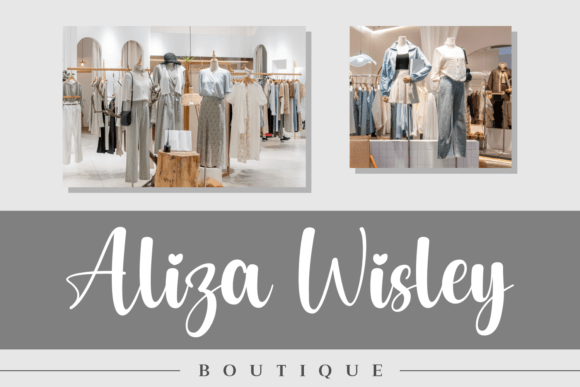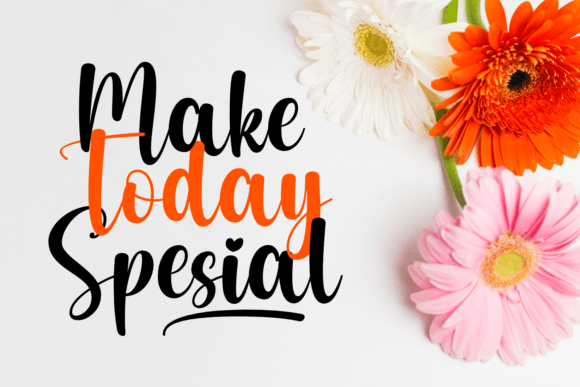
The Perfect Touch of Elegance: Aesthetic Charming Font
Do you remember the moment when a particular font or typography caught your eye and inspired a design concept? For many creatives, this is a familiar experience that sparks the imagination and sets the tone for a project. As I recall my own journey, I often find myself drawn to fonts that exude elegance and sophistication. One such font that has captured my heart is the Aesthetic Charming Elegant Calligraphy Font, a stunning typeface that adds a touch of refinement to any project.
This beautiful font is not just a pretty face; it’s a valuable asset for designers who want to elevate their work with a sense of luxury and charm. Whether you’re working on wedding stationery, branding materials, or editorial designs, the Aesthetic Charming Font is an ideal choice that will leave a lasting impression on your audience.
Aesthetic Charming Font Key Features
- Size: The font is available in 4 font sizes: 400, 500, 600, and 700, allowing for flexibility in typography.
- Resolution: Designed for high-resolution displays, the font is optimized for 300 DPI and above, ensuring crisp and clear text.
- Unique Characteristics: The Aesthetic Charming Font features a unique blend of elegant and whimsical elements, making it perfect for creative projects.
- Language Support: The font supports a wide range of languages, including Latin, Cyrillic, and Greek, making it suitable for international projects.
Aesthetic Charming Font Review
I’ve had the chance to work with the Aesthetic Charming Font, and here’s my honest review.
- Unique and creative design: The font’s intricate details and flowing curves make it stand out from more traditional font options.
- High level of customization: I was able to adjust the font’s size, color, and spacing to fit the specific needs of each project.
- Supports a wide range of languages: I was impressed by the font’s ability to handle languages with non-Latin scripts.
- May not be suitable for all audiences: The font’s playful, whimsical design may not be suitable for formal or professional applications.
- Lack of bold and italic variants: While the font is available in a range of weights, I would have liked to see more options for bold and italic text.
- Not suitable for small text sizes: At smaller font sizes, the font’s intricate details can become difficult to read.
The Aesthetic Charming Font is a unique and versatile option that’s perfect for creative projects. While it may have some limitations, I appreciate the level of customization and support for a wide range of languages.
Tips for Getting the Most Out of Aesthetic Charming Font
Use Aesthetic Charming Font for titles, headings, and body text to add a touch of elegance to your designs.
Pair it with a clean and minimal background to let the font take center stage.
Experiment with different font sizes and styles to create visual interest and hierarchy.
Aesthetic Charming Font is perfect for:
Branding and marketing materials
Photography and art portfolios
Stationery and greeting cards
Alternatives to Aesthetic Charming Font
Great Vibes Font is a modern, elegant script font perfect for creating a sophisticated and stylish design. It’s ideal for use in wedding invitations, luxury brand logos, and high-end marketing materials.
Compared to Aesthetic Charming Font, Great Vibes Font has a more refined and polished look, making it suitable for high-end designs. It lacks the playful and whimsical feel of Aesthetic Charming Font, but offers a more professional and sophisticated appearance.
What is the recommended font size for optimal readability with Aesthetic Charming Font?
For optimal readability, we recommend using Aesthetic Charming Font at sizes between 12pt and 24pt for body text, and 36pt to 48pt for headings. You can adjust the font size according to your design requirements and target audience.